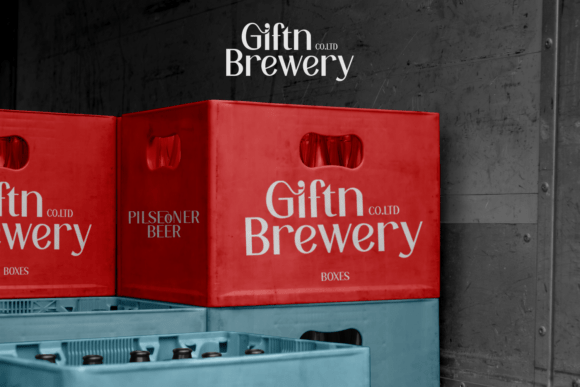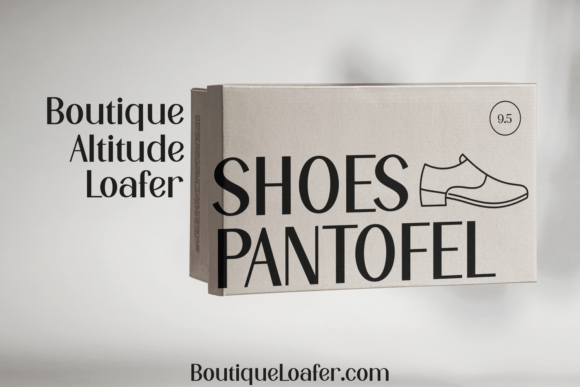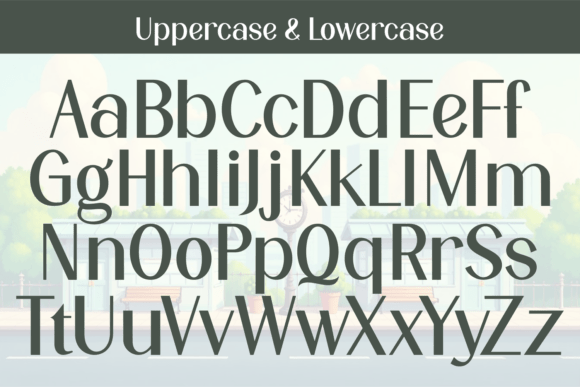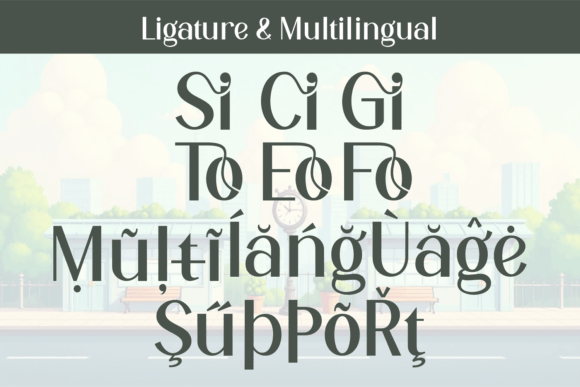
Introduction to Simple Town Font
This beautiful sans-serif font boasts smooth curves and artistic letterforms that will elevate your creative project from good to great. With its subtle flourishes and clean lines, the Simple Town Font is perfect for both headlines and body text, ensuring your message shines through with clarity and sophistication.
Key Features of Simple Town Font
- Unique characteristics: clean lines, minimalist aesthetic, and a subtle texture, making it ideal for modern designs.
- Perfect for use in creative projects such as logos, branding, and typography-based designs.
Honest Review: Simple Town Font
- High-quality design: The font is clean, modern, and perfectly suited for a creative project.
- Perfect for text-based designs: The Simple Town Font is ideal for titles, headings, and body text, making it a great all-around font.
- Not ideal for display-based designs: While the font is great for text-based designs, it may not be the best choice for display-based designs, such as logos or graphics.
- Limited character set: The font may not have a complete set of characters, which could be a limitation for some designers.
Overall, I’m impressed with the Simple Town Font. It’s a great design resource that’s perfect for most creative projects. While it may have some limitations, it’s still a high-quality font that’s definitely worth checking out.
Tips for Getting the Most Out of Simple Town Font
The Simple Town Font is ideal for use in creative projects, such as logo designs, social media graphics, and marketing materials. Its clean and modern design makes it perfect for use in a variety of industries, including fashion, beauty, and technology.